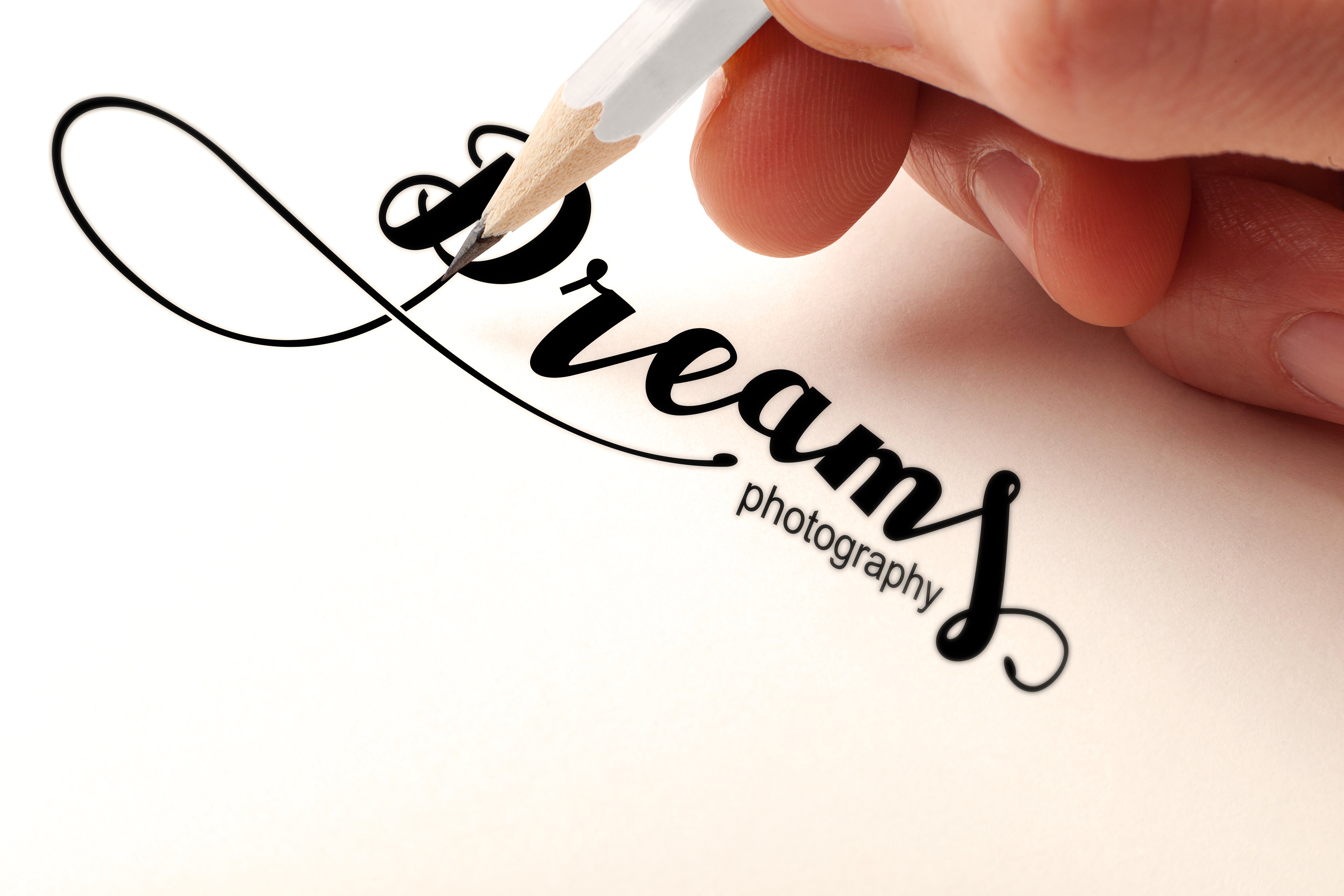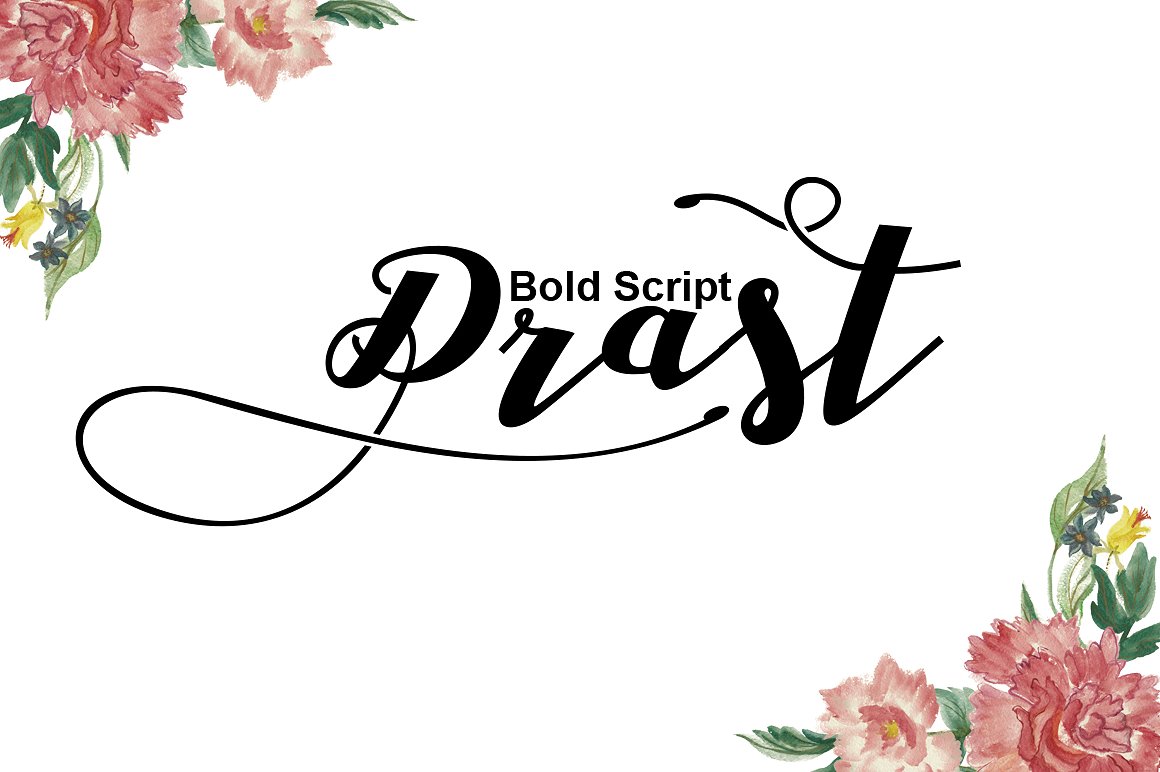
Drast Bold Script
Drast Bold Script is a Bold Hand Calligraphy, modern calligraphy wavy, which was created to meet the needs of your next design project. Drast Bold Script, Can used for various purposes. such as the title, logo, correspondence, wedding invitations, letterhead, signage, labels, newsletters, posters, badges, t-shirt, etc.